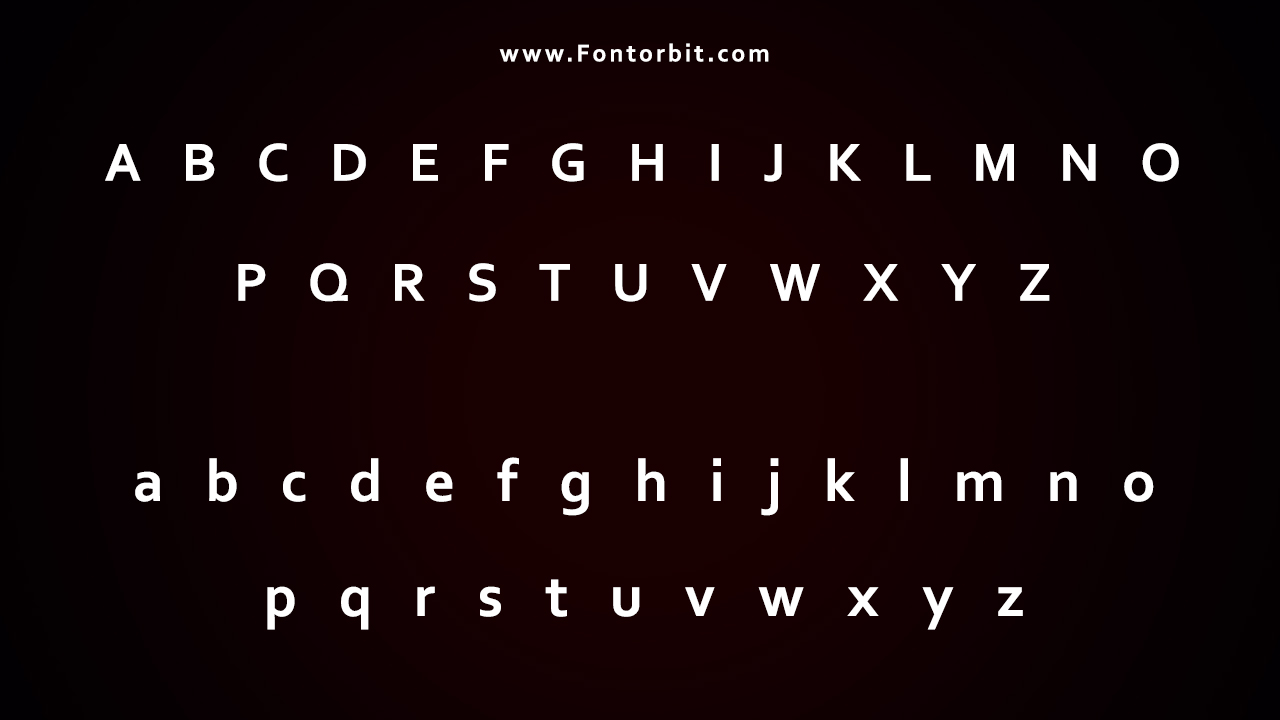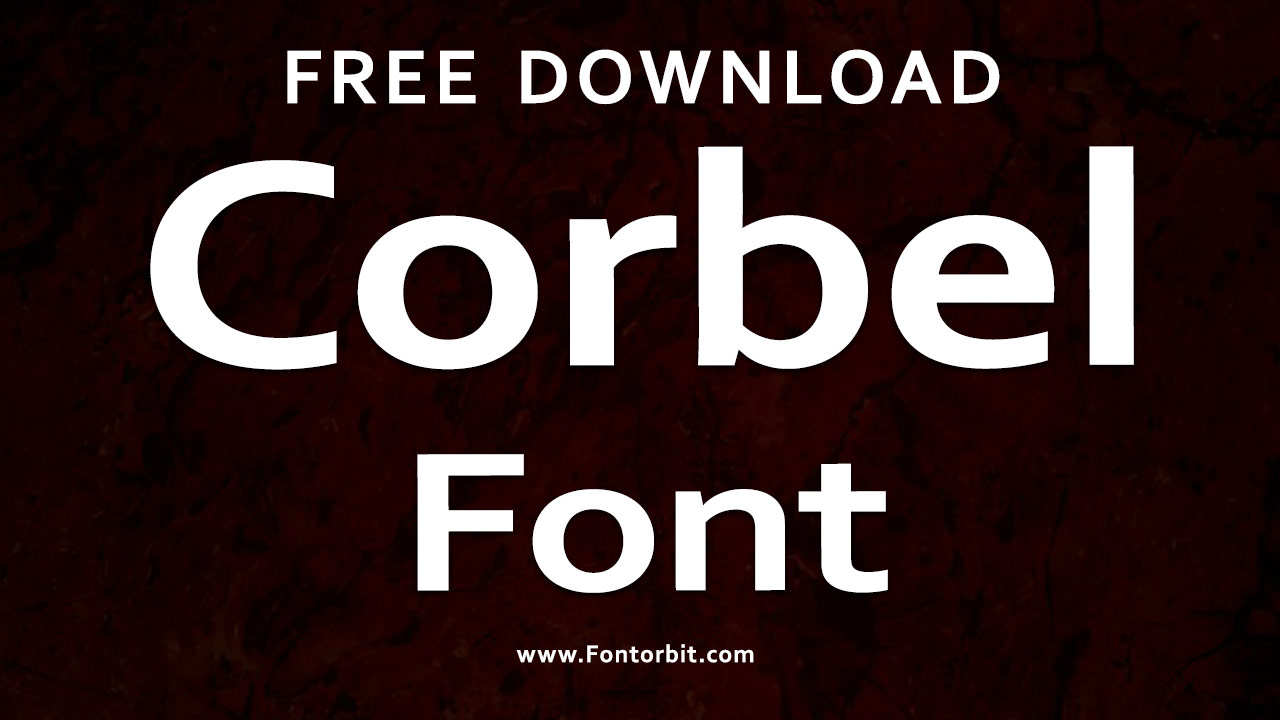
Corbel is a modern sans-serif typeface designed by Jeremy Tankard. Published by Microsoft in 2007, Corbel is part of the ClearType Font Collection, specifically designed to enhance readability on screens. It is a clean and versatile font that fits well in both digital and print media.
Corbel Family Includes
Corbel is available in a variety of weights and styles, making it suitable for various applications. The Corbel family includes:
- Corbel Bold
- Corbel Bold Italic
- Corbel Italic
- Corbel Light
- Corbel Light Italic
Notable Uses Of Corbel
Due to its clarity and readability, Corbel is frequently used in digital interfaces, professional documents, and presentations. It’s a popular choice for web design, user interfaces, and corporate branding.
Corbel is ideal for:
- Websites and digital content where readability is crucial.
- Professional documents and reports.
- Presentations and slideshows.
- User interface design in applications and software.
Corbel is a practical and versatile typeface perfect for a range of applications from digital to print. Its modern design and clear readability make it a valuable addition to any font library.
1.What Is Corbel Font?
Corbel is a sans-serif typeface designed by Jeremy Tankard, part of the ClearType Font Collection.
3.What Are The Main Styles Of Corbel?
Corbel comes in Regular, Italic, Bold, and Bold Italic styles.
4.Is Corbel Similar To Arial?
Both are sans-serif fonts, but Corbel has a more modern design compared to Arial.